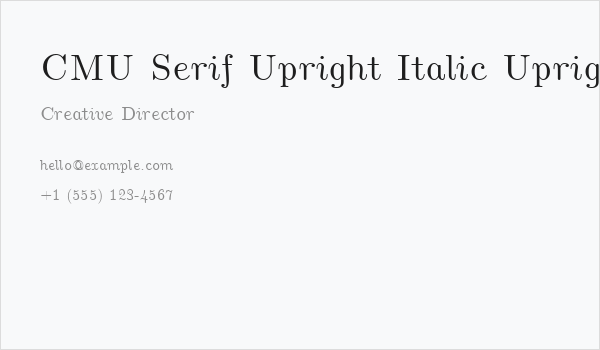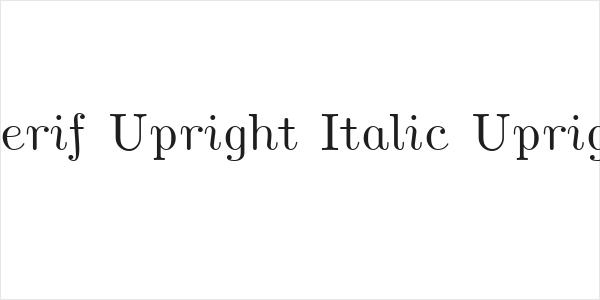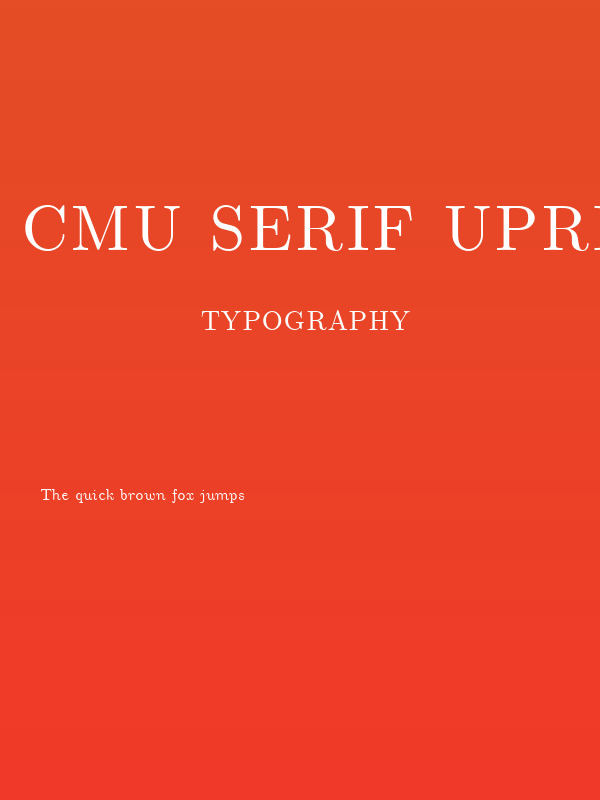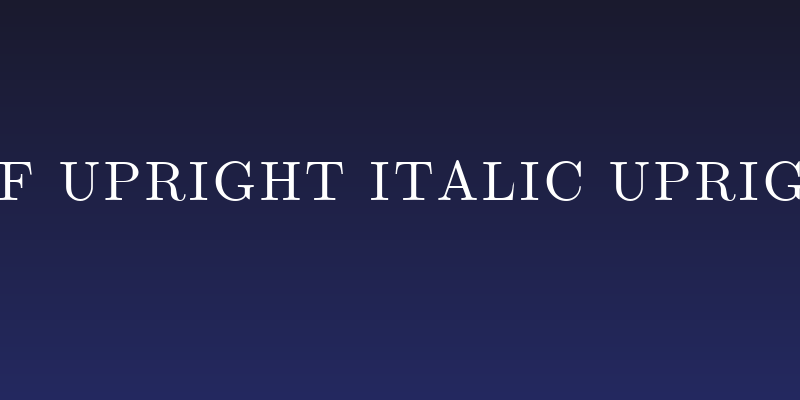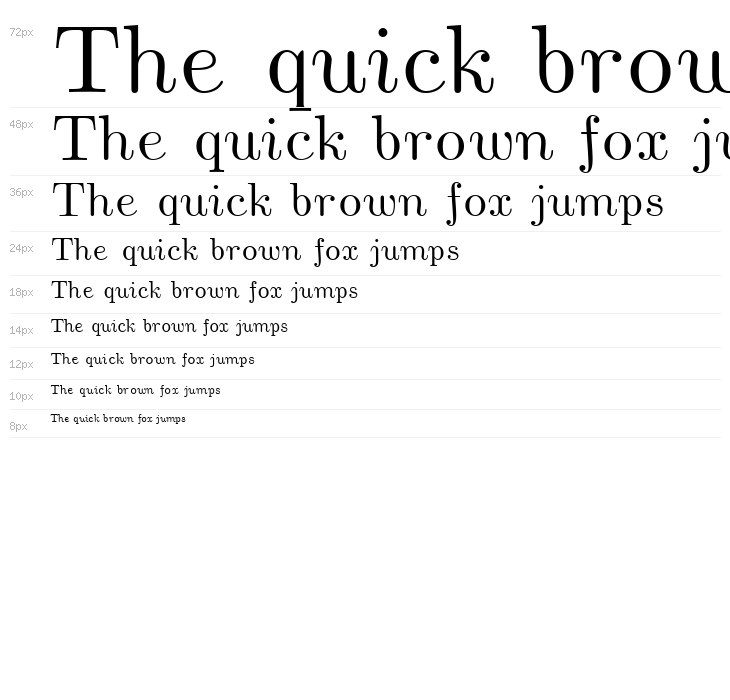
CMU Serif Upright Italic UprightItalic Font
CMU Serif Upright Italic UprightItalic Description
This font exhibits a classic serif style with a refined and elegant appearance. The uppercase letters are well-proportioned with distinct serifs that add a touch of sophistication. The lowercase letters maintain a consistent flow, with gentle curves and a slight slant that suggests a hint of italicization. The numerals are clear and balanced, making them easy to read. Special characters are thoughtfully designed, complementing the overall aesthetic. The font's structure is ideal for conveying a sense of tradition and reliability, making it suitable for formal documents and publications.
| Use Case | Body text, Headlines, Formal documents |
| Proposed Projects | Ideal for book typesetting, formal invitations, academic papers, and branding materials that require a traditional and sophisticated look. |